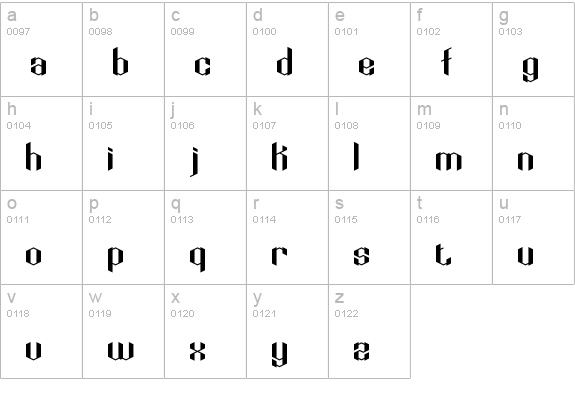
Key Ridge alt BRK Font Details
Key Ridge alt BRK font is a versatile and stylish typeface that exudes a sense of modernity and sophistication. Its unique design features sharp angles and clean lines, giving it a sleek and contemporary look. This font is perfect for adding a touch of elegance to your designs, whether for branding, packaging, advertising, or any other creative project. The best part about Key Ridge alt BRK font is that it is completely free to download at FontsMarket.com. This means you can easily access this beautiful font without any cost, making it a valuable addition to your font collection. Don't miss out on the opportunity to enhance your designs with the striking Key Ridge alt BRK font - download it today and elevate your projects to the next level!